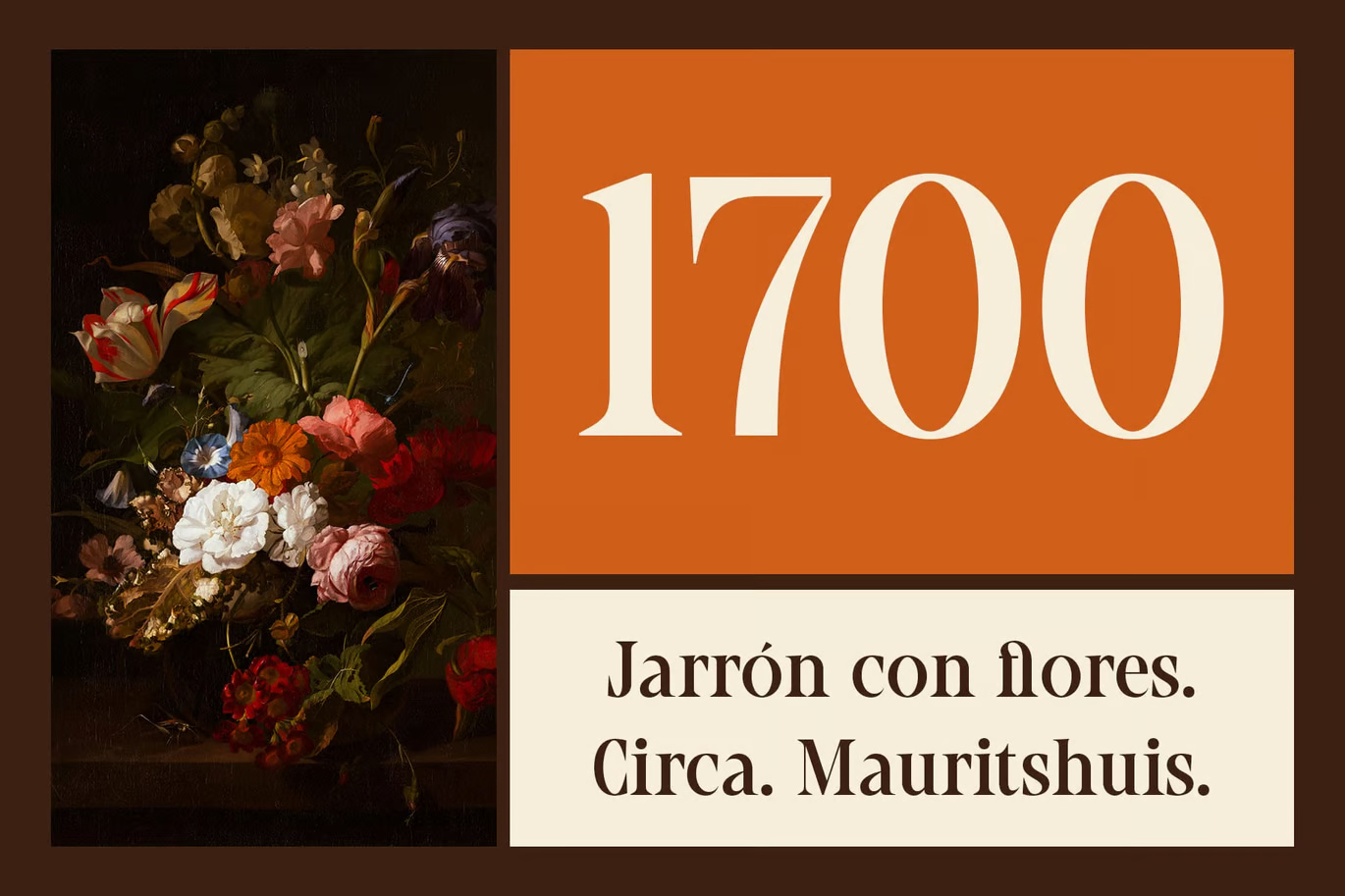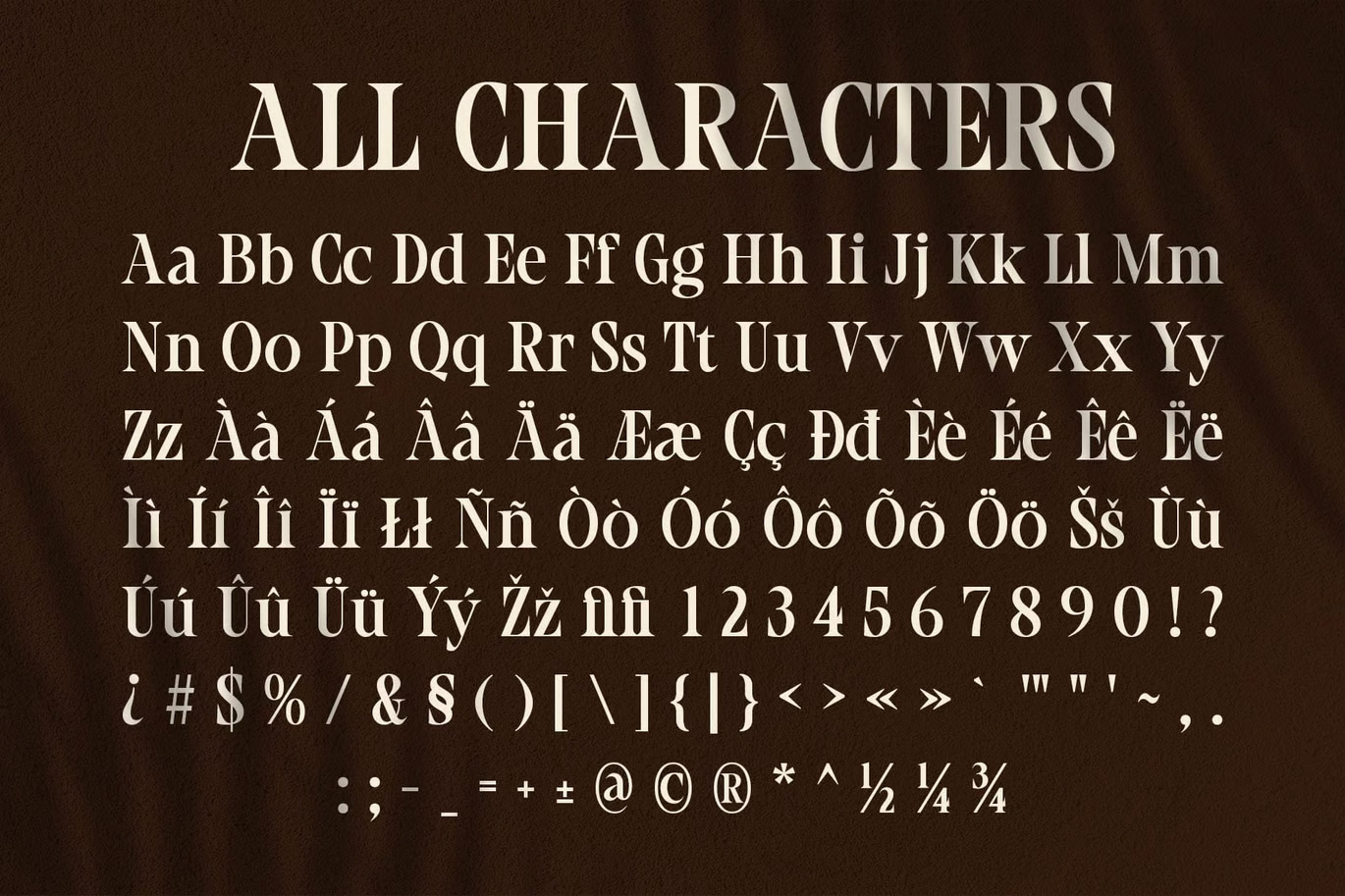
Ariela – Classic Font: Elegant, Professional, and Timeless
Ariela is a modern classic serif font that combines the best of traditional serif design with a cleaner, more contemporary aesthetic. Featuring bold, neat serifs and a distinct contrast between thick and thin strokes, it strikes a perfect balance between elegance and stability. Its structured, symmetrical letterforms offer a refined appearance, making it an ideal choice for formal and prestigious applications.
With its formal shape and serious tone, Ariela exudes a sense of professionalism and credibility. The carefully crafted letterforms enhance its traditional appeal, while the subtle modern touches ensure it remains relevant in today’s design world. Whether for official documents, books, or historical texts, this font adds an air of authority and prestige.
Ariela is the perfect font for projects that prioritize sophistication and a refined visual presence. Its timeless design ensures it excels in high-stakes environments, from academic publications to corporate branding. Offering both strength and elegance, it’s the ideal choice for conveying a serious yet stylish tone that resonates with professionalism and trustworthiness.
Ariela Classic Serif Font